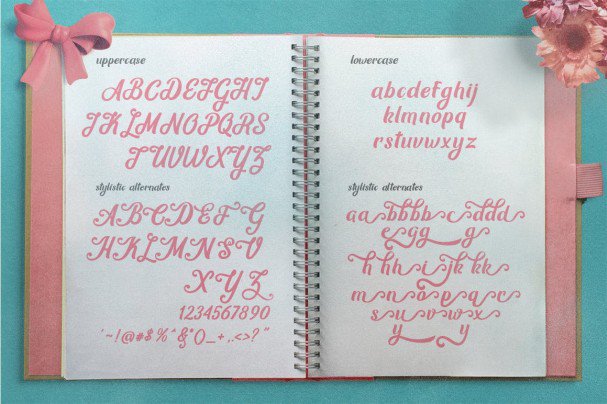
Mon Cheri Typeface Font
The Mon Cheri Typeface Font is highly rated on Google Fonts for its handwritten style, making content look exceptional.
Style Of Mon Cheri Typeface Font Free